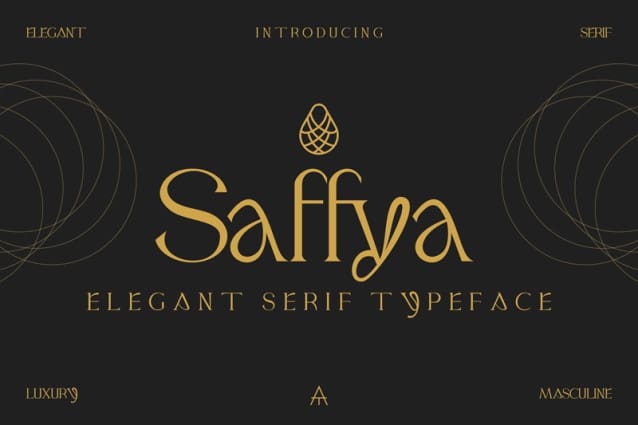
Saffya Font
Saffya Font, this serif font is stylish and sophisticated. It has a classic feel with thin strokes, sharp angles, and elegant curves. It is perfect for any project looking to add a touch of class. Saffya Font is PUA encoded which means you can access all glyphs and swashes effortlessly!